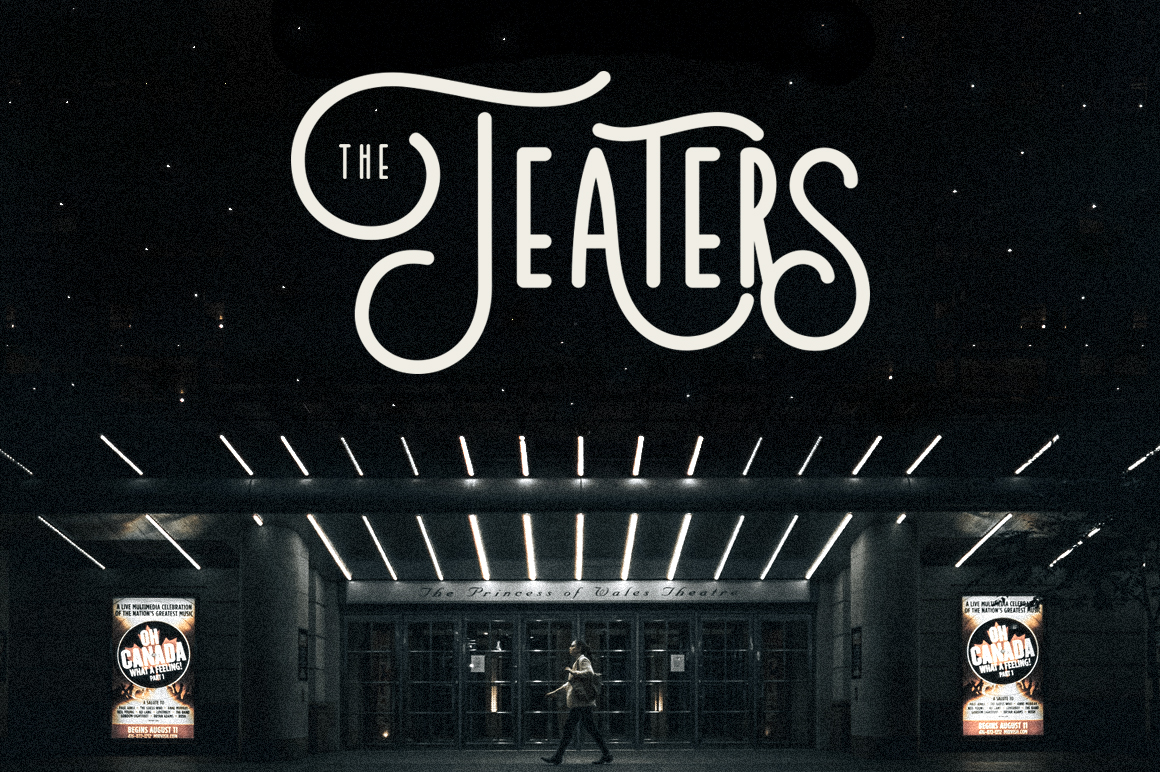
Teaters Typeface
Introducing Teaters Typeface taken from the Theater. A unique sans serif with some alternatives and multi language support. Teaters Typeface allows you to create a word to look like hand lettering. it is suitable for your design project needs such as posters, branding, flyers, cards, invitations, lettering projects and many more.